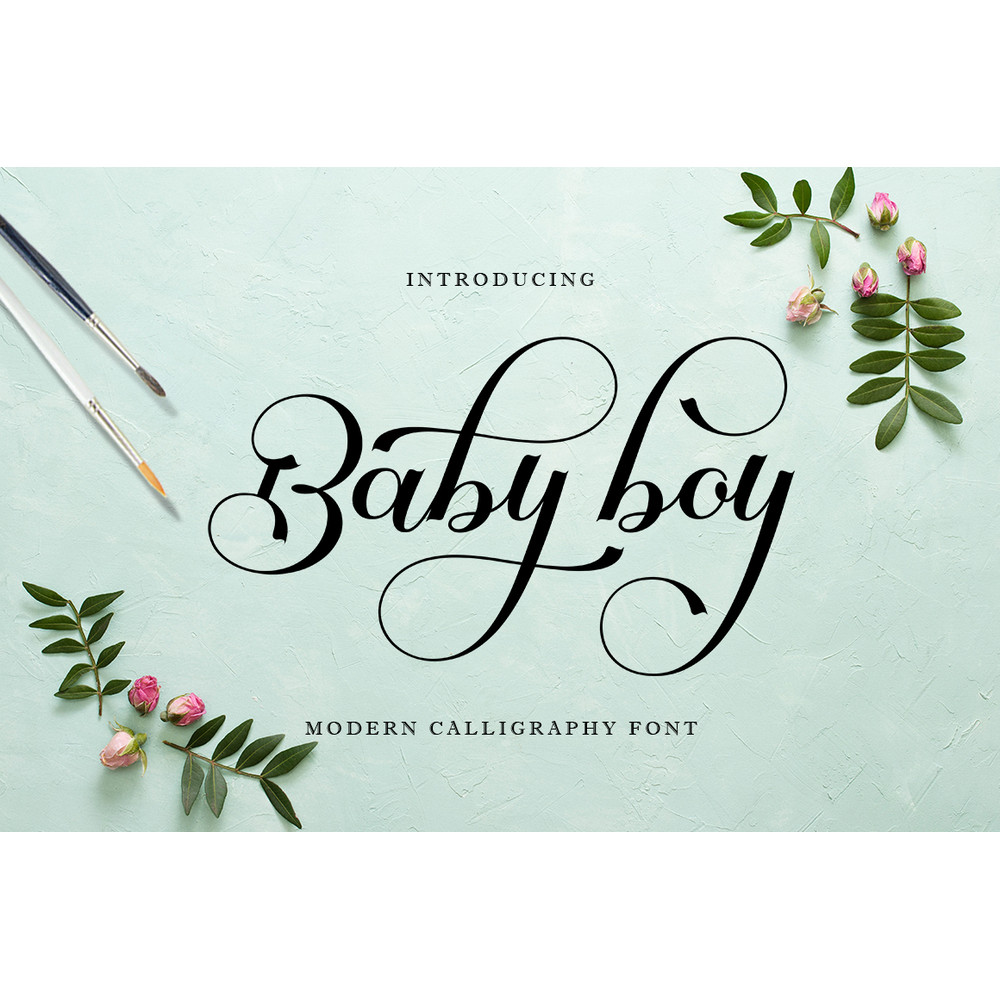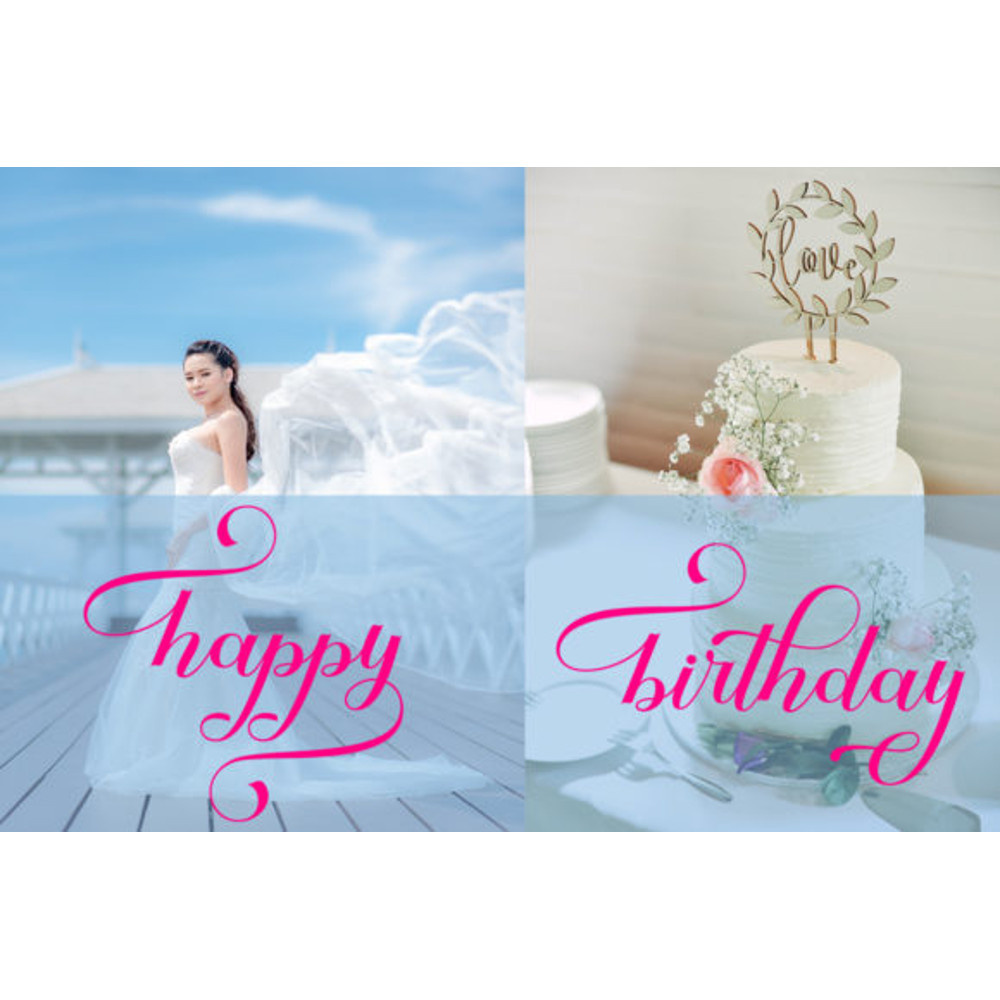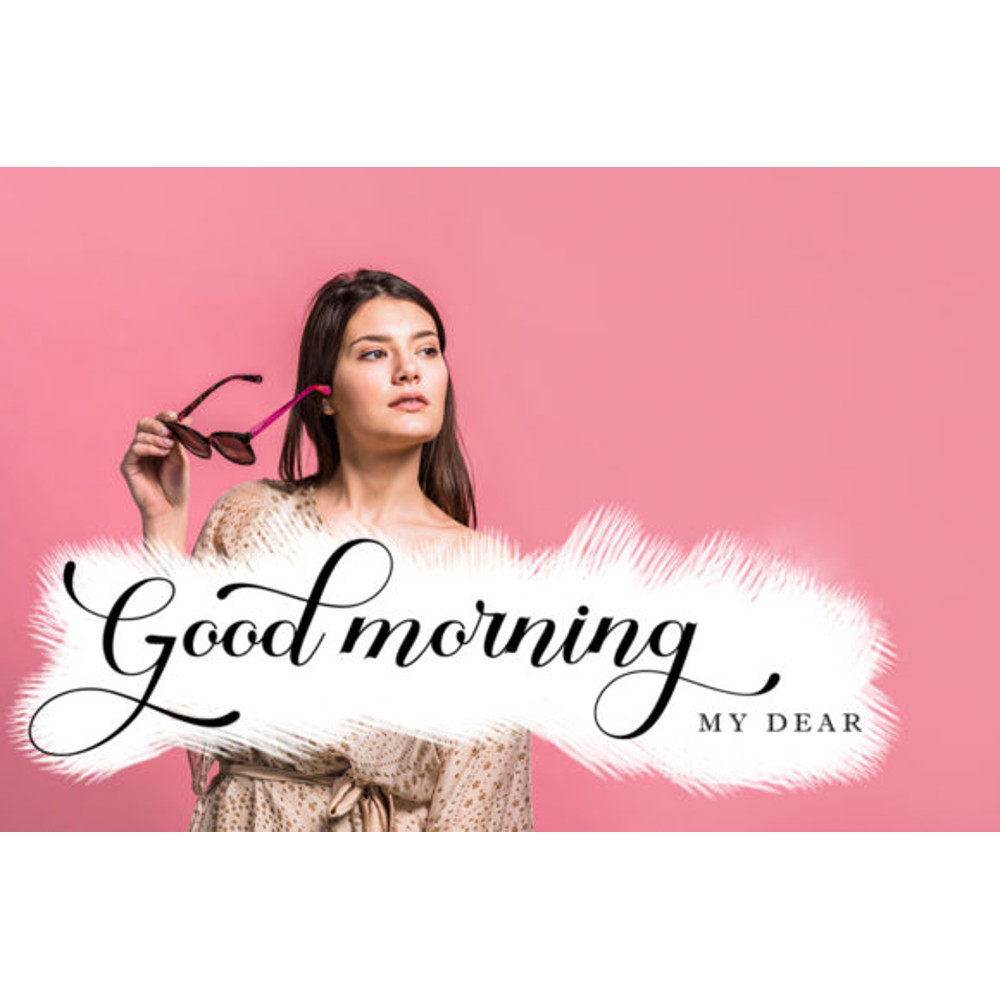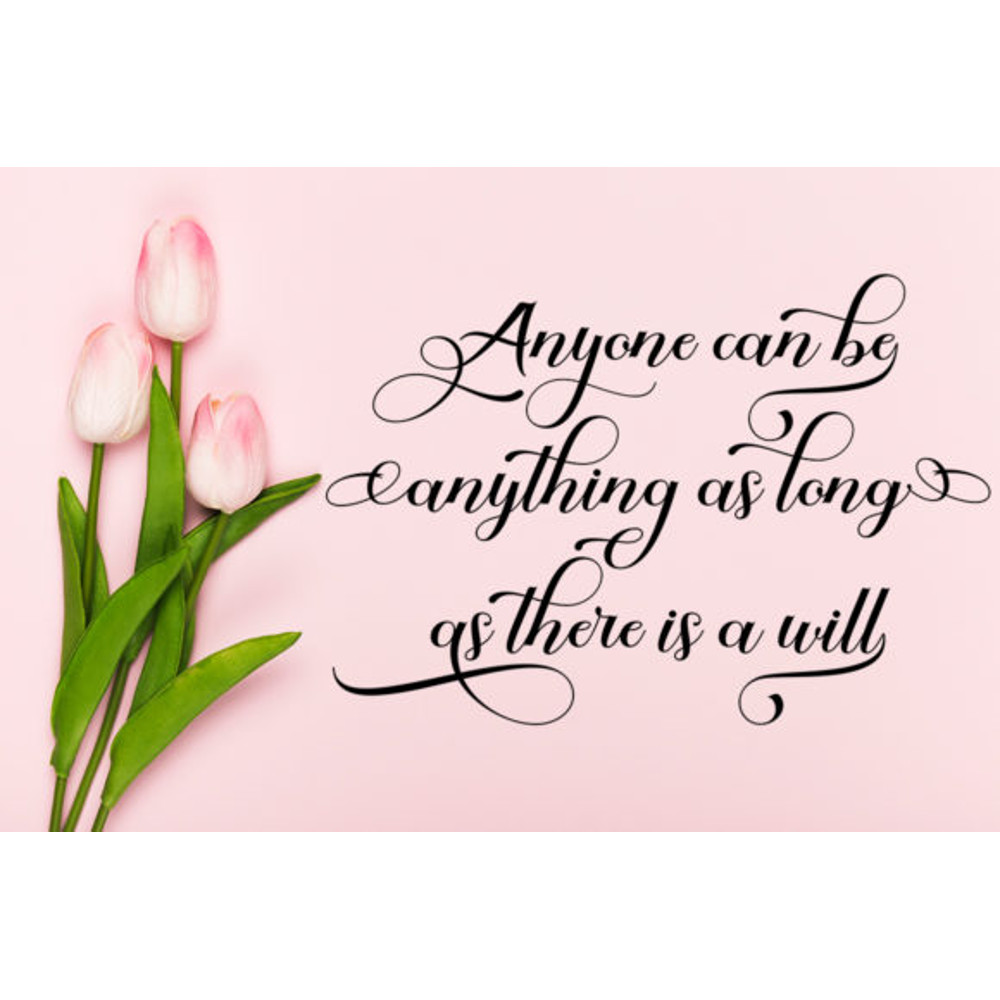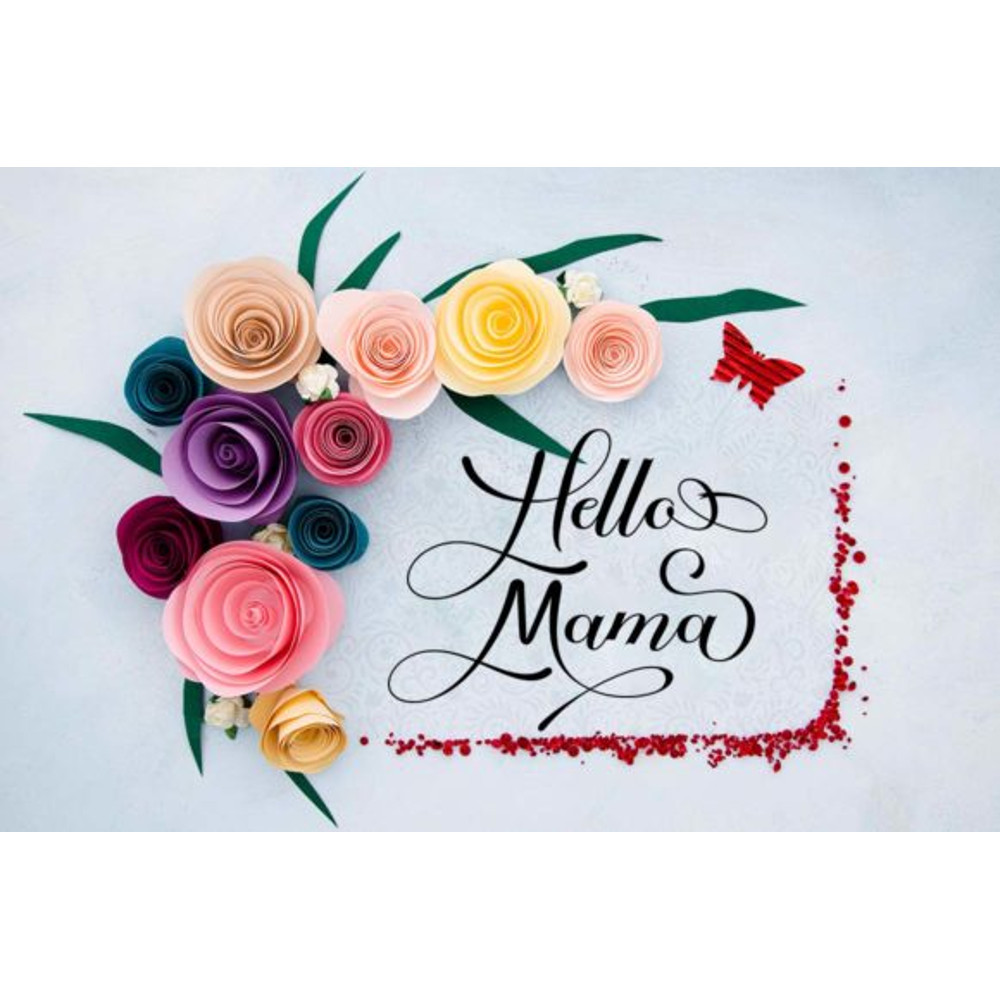
Baby Boy is a romantic and elegant handwritten font. It looks beautiful on baby shower invitations, thank you cards, quotes, greeting cards, logos, business cards and every other design which needs a dreamy touch.